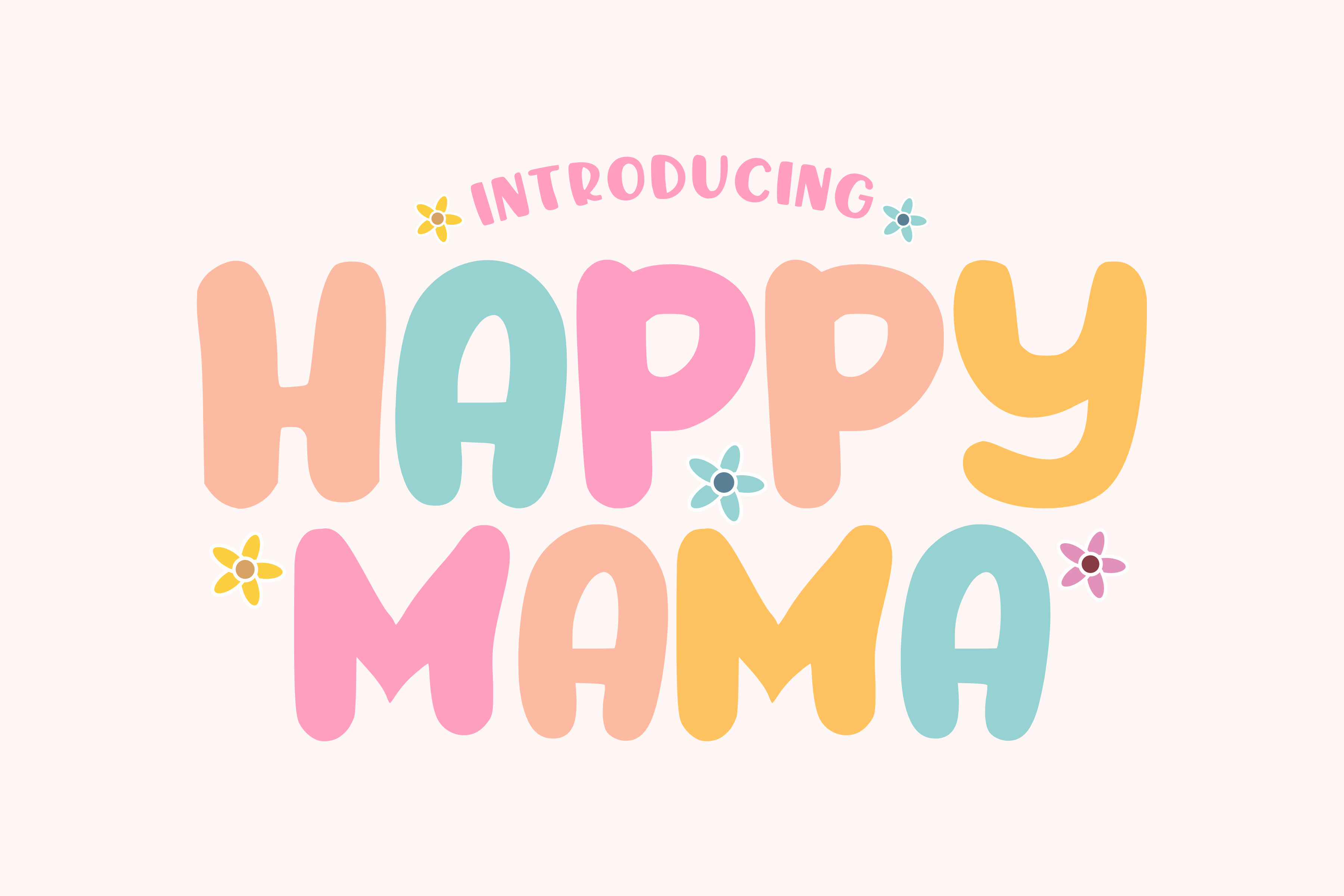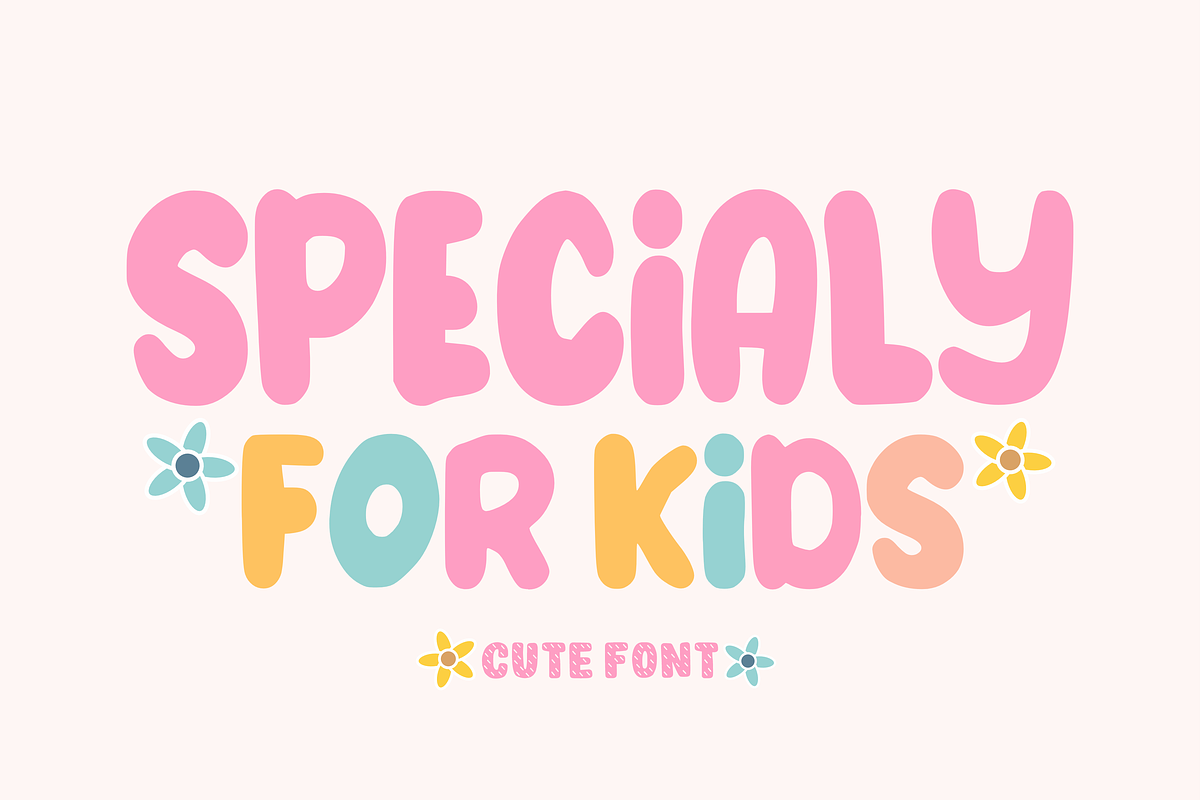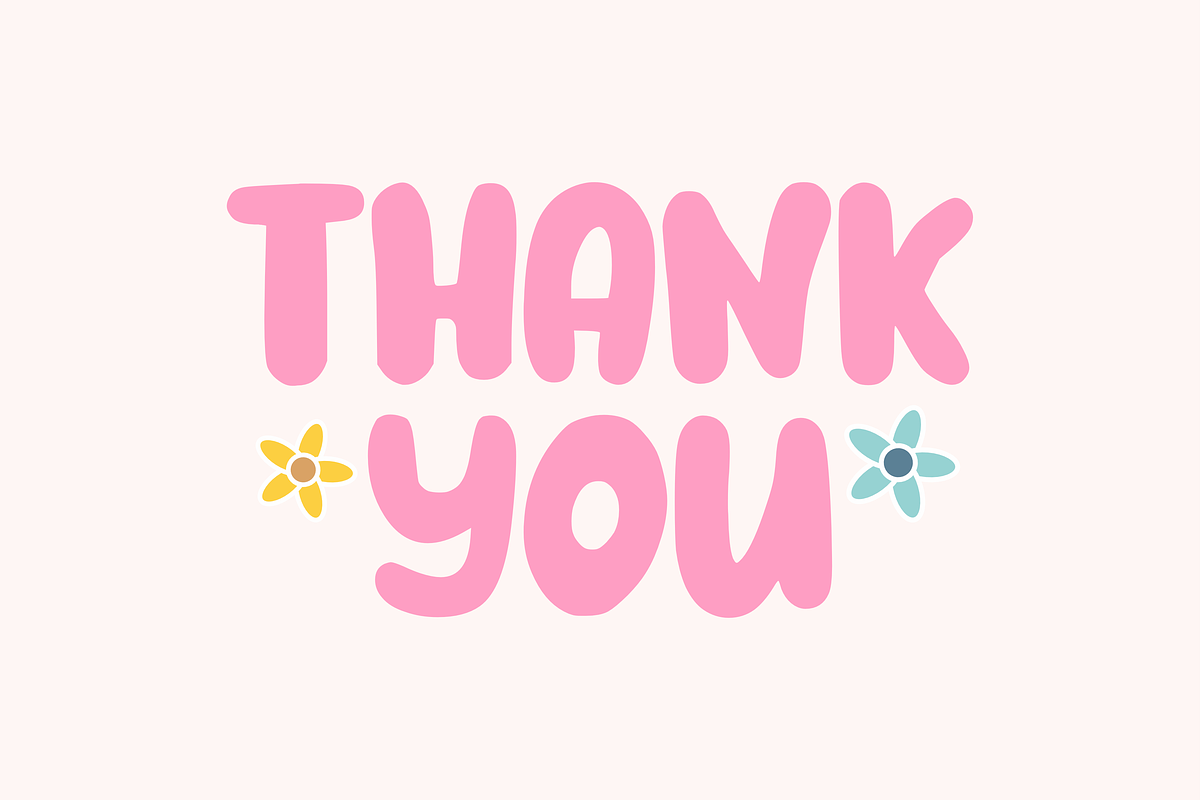
Happy Mama - Kids Font Types
“Happy Mama” is a cheerful and playful typeface, with rounded corners that give a friendly, elegant, and playful impression. This font is designed to convey a cheerful and loving message, suitable for use in social media, comics, invitations, or other digital design works. With an expressive and colorful letter style, this font adds joy and warmth to the design, creating a unique and attractive impression.